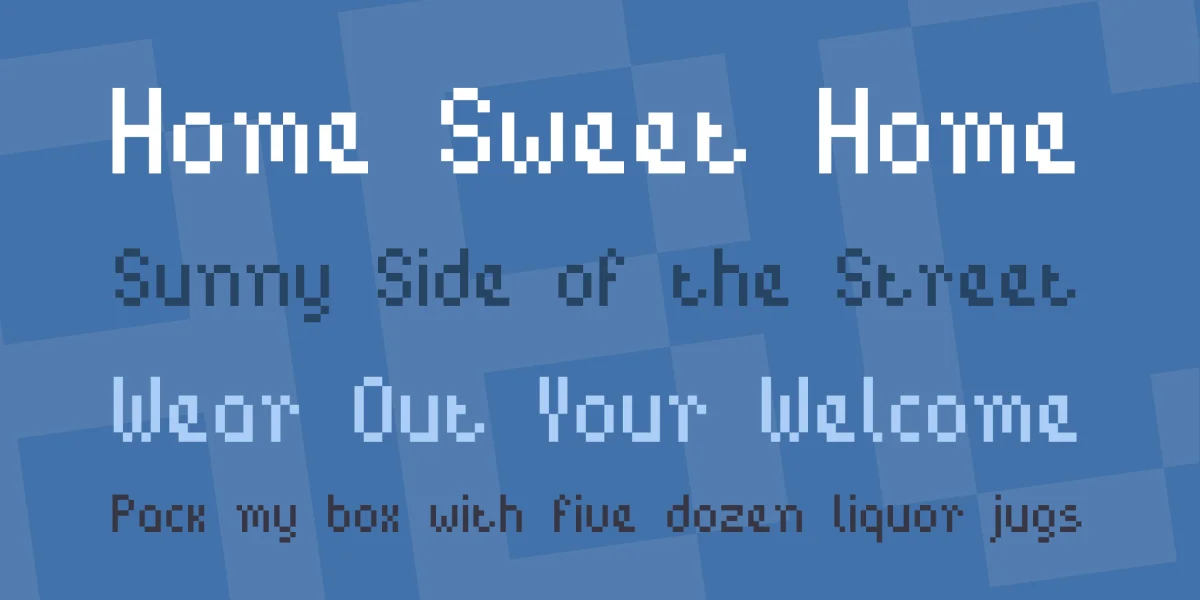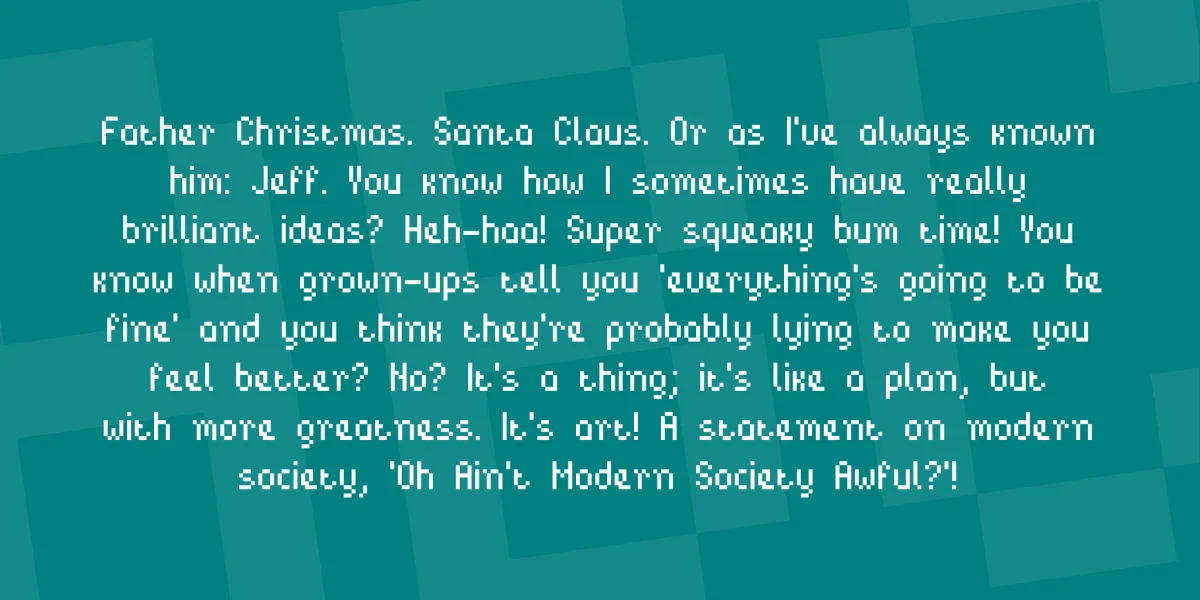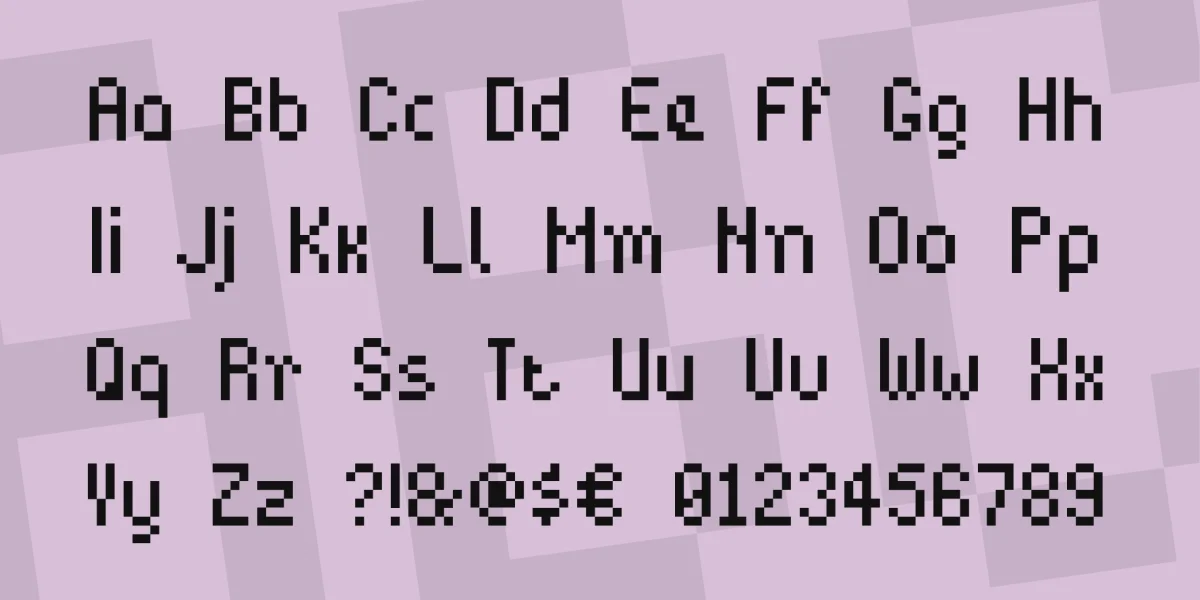
BitPotion is a pixel font available in both TTF and Bitmap formats (.png + .fnt).
The font contains both uppercase and lowercase letters, numbers and a range of commonly used symbols. BitPotion Extended adds a large range of Latin accented characters and a further range of symbols.
The average size of the characters is 4x7 for uppercase letters and 4x5 for lowercase, stretching to 7 with ascenders/descenders.